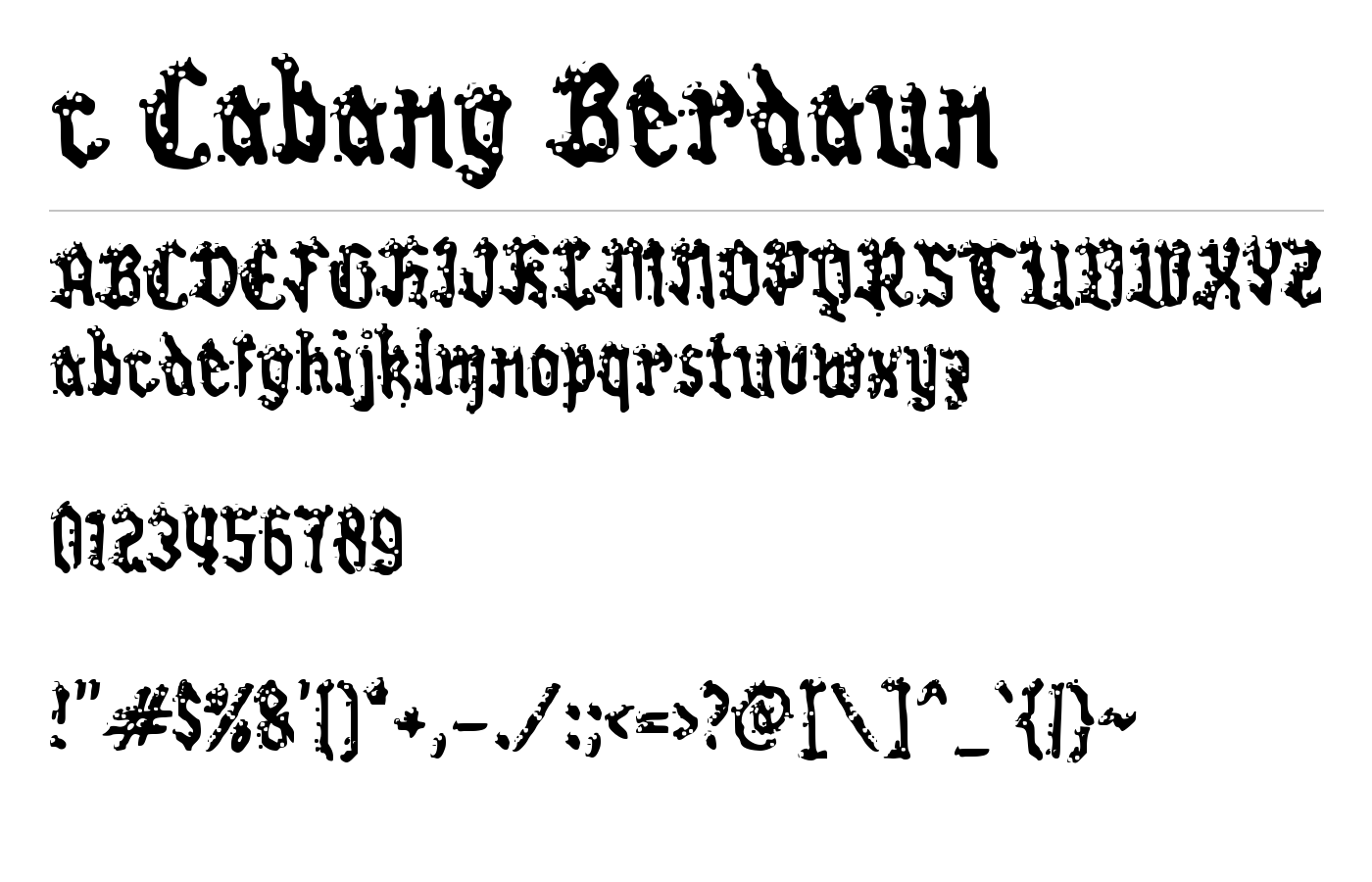
c Cabang Berdaun is a bold, decorative serif font with a unique organic texture that resembles branching or leafy growths, giving it an eccentric and natural feel. Its condensed width and high contrast between thick and irregular edges make it ideal for eye-catching headlines or display purposes, particularly in creative, nature-inspired, or fantasy-themed projects. This font adds a striking, whimsical personality that stands out in logos, posters, and themed branding.
c Cabang Berdaun Font
About c Cabang Berdaun Font